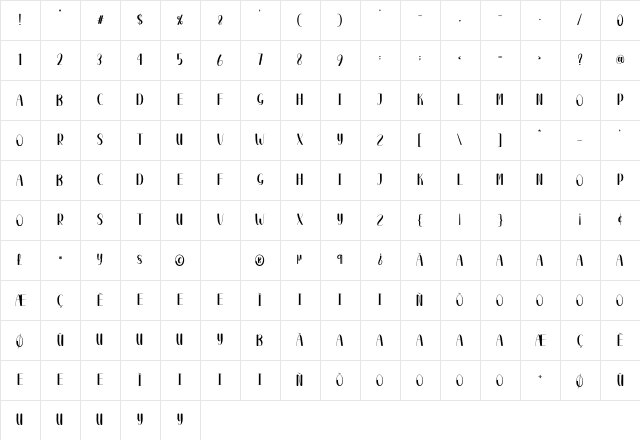
Night Time Regular Free Font
Night Time Regular
Design Context for Night Time
Night Time is a composed and adaptable typeface that performs quietly and consistently across a wide range of design contexts.